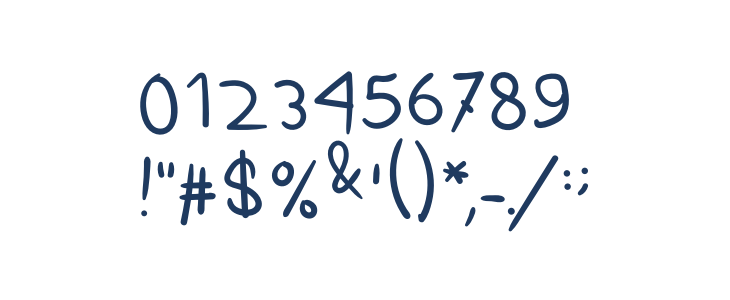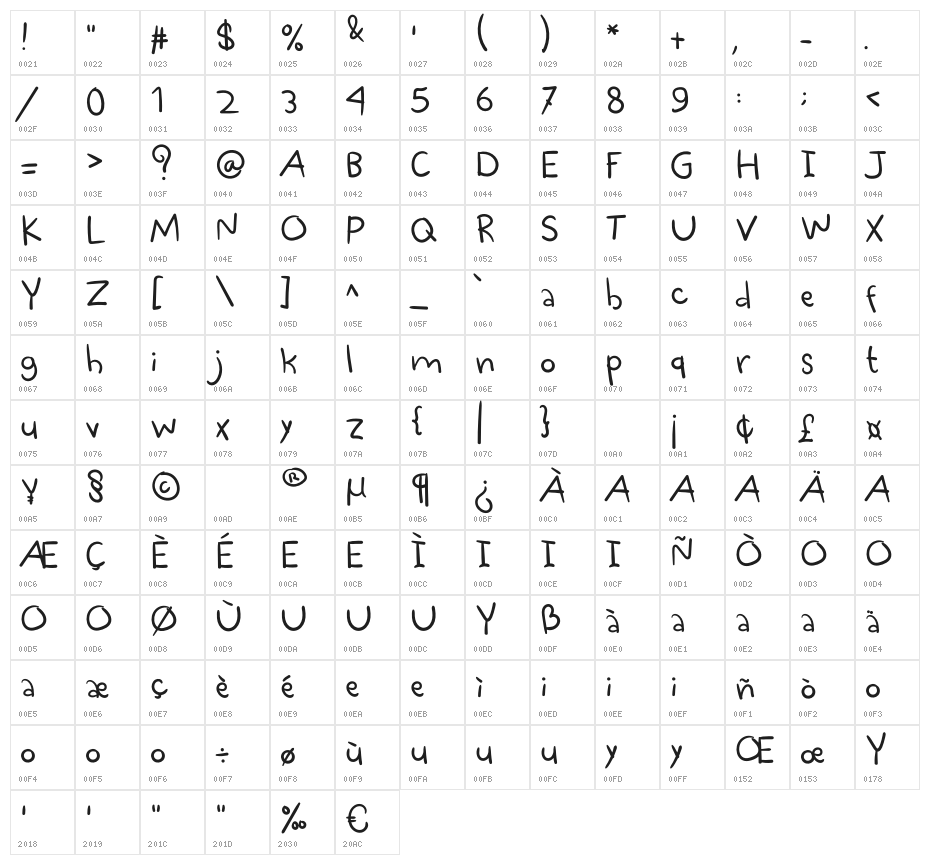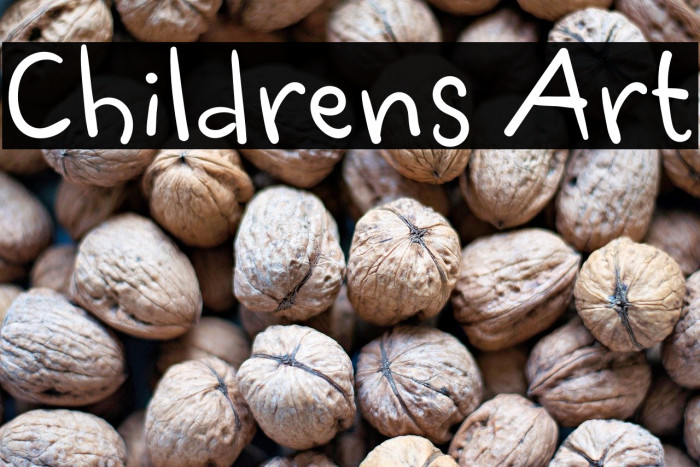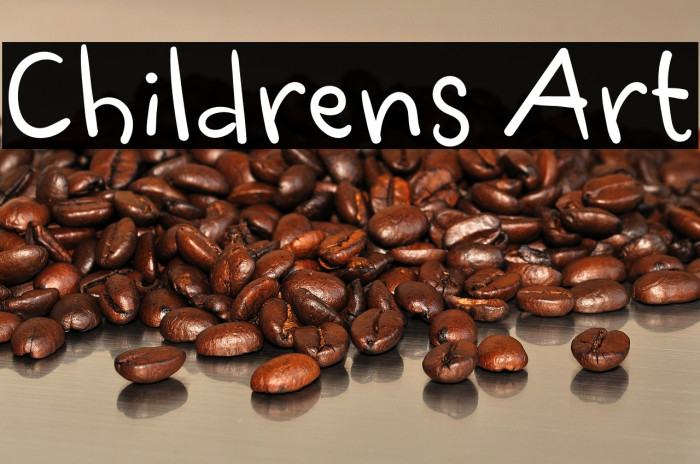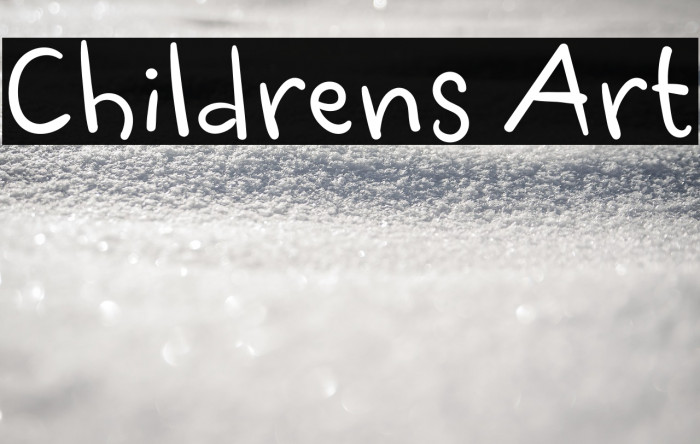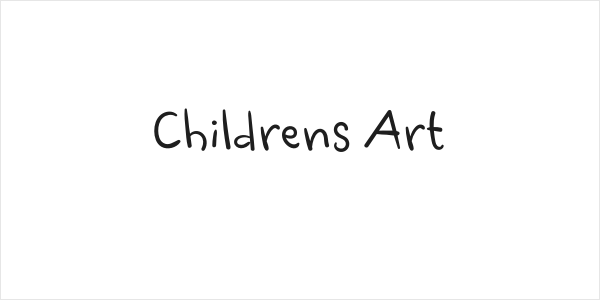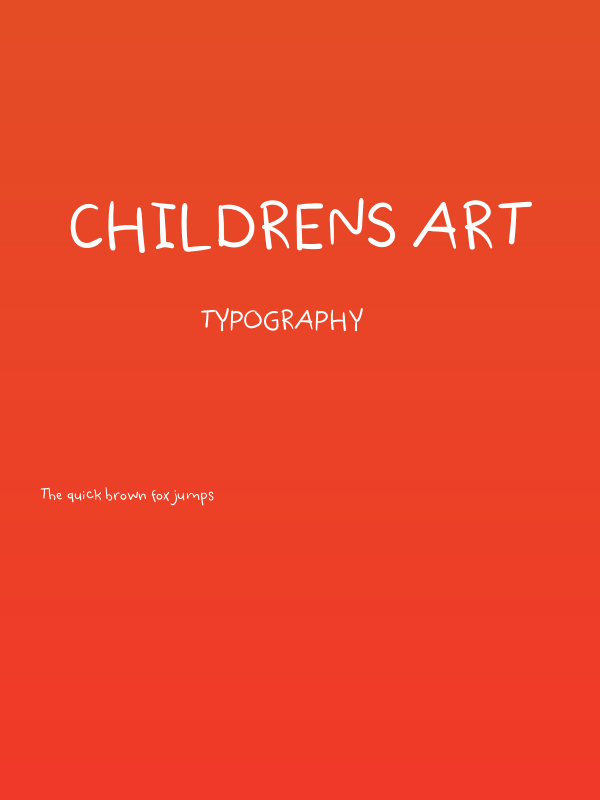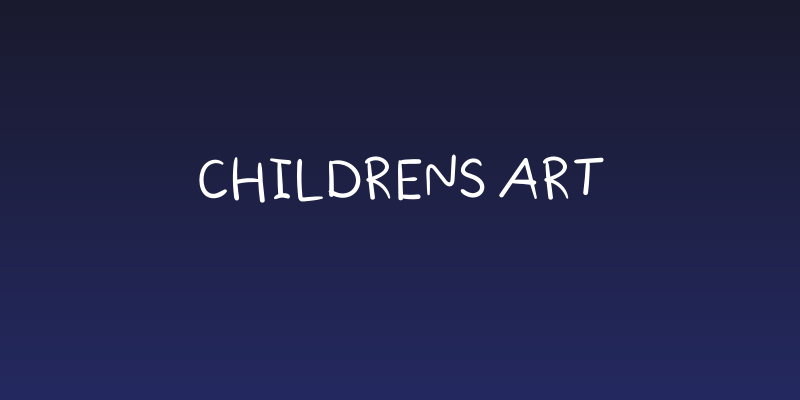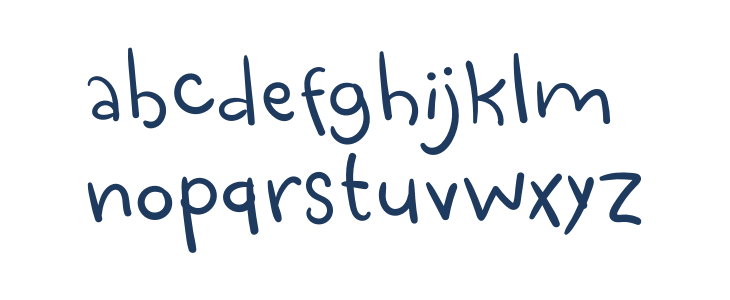
Childrens Art Font
Childrens Art Description
This playful and whimsical font captures the essence of a child's handwriting with its irregular, rounded shapes and slightly uneven baseline. The letters are crafted with a casual, friendly style that evokes a sense of innocence and creativity. Each character has a unique, hand-drawn quality, making it perfect for projects that aim to convey a sense of fun and spontaneity. The font includes a full set of uppercase and lowercase letters, numbers, and a variety of special characters, all maintaining the same lively and informal aesthetic.
| Use Case | Headlines, Logos, Children's materials |
| Proposed Projects | Ideal for children's books, educational materials, playful branding, and creative projects that require a touch of whimsy. |